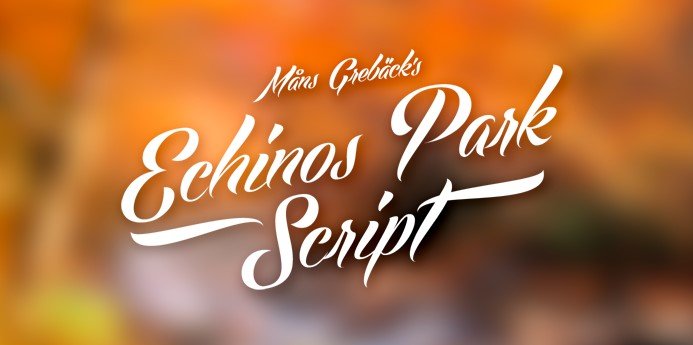
Echinos Park Script Font is an outstanding and widely recognized typeface ideal for large-scale calligraphic and scripted designs. It was created and released by Måns Grebäck in 2012.
The font contains more unique and astonishing glyphs and textures. It supports multiple languages which will help you to utilize in all website designs, logos, and other cool designs.